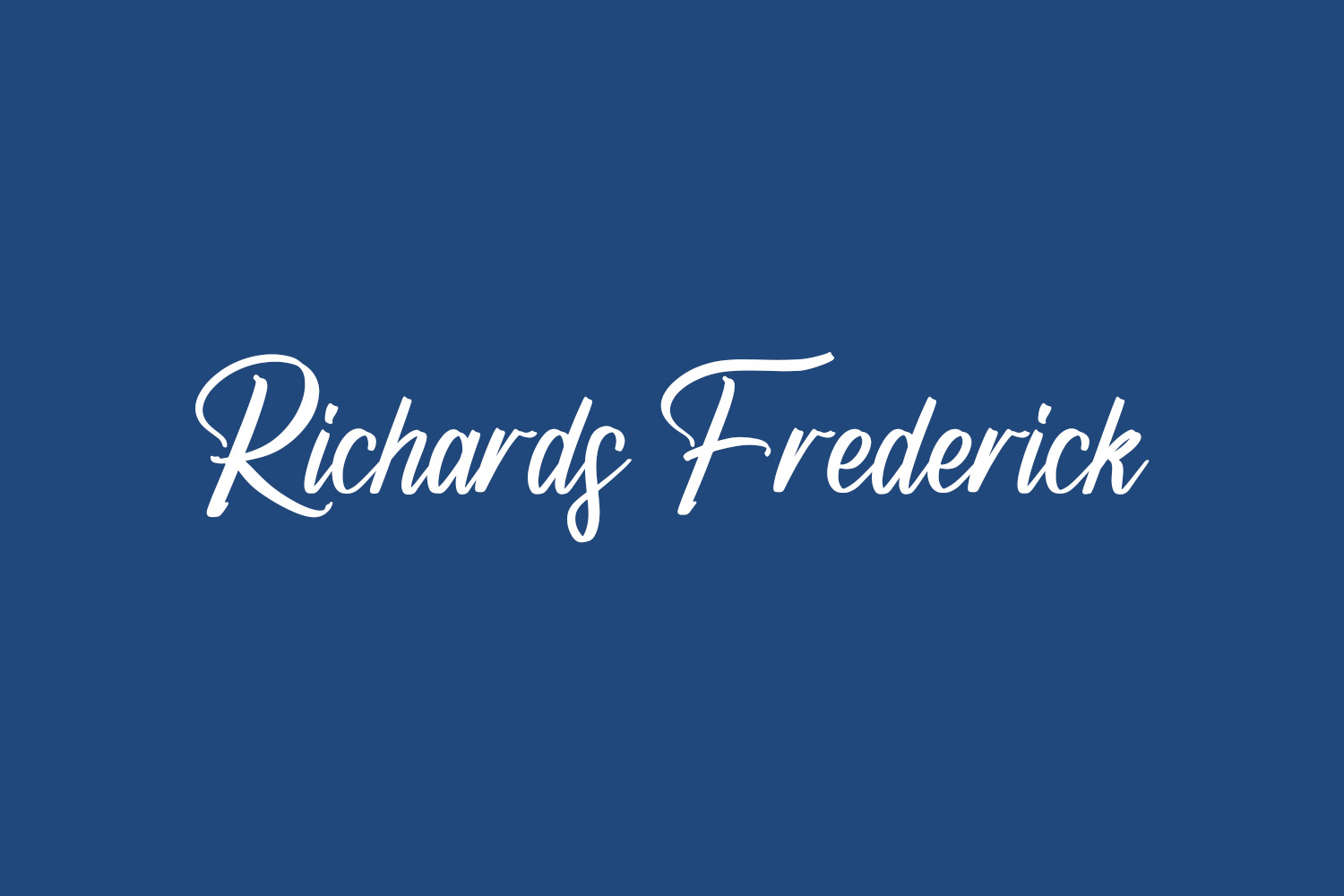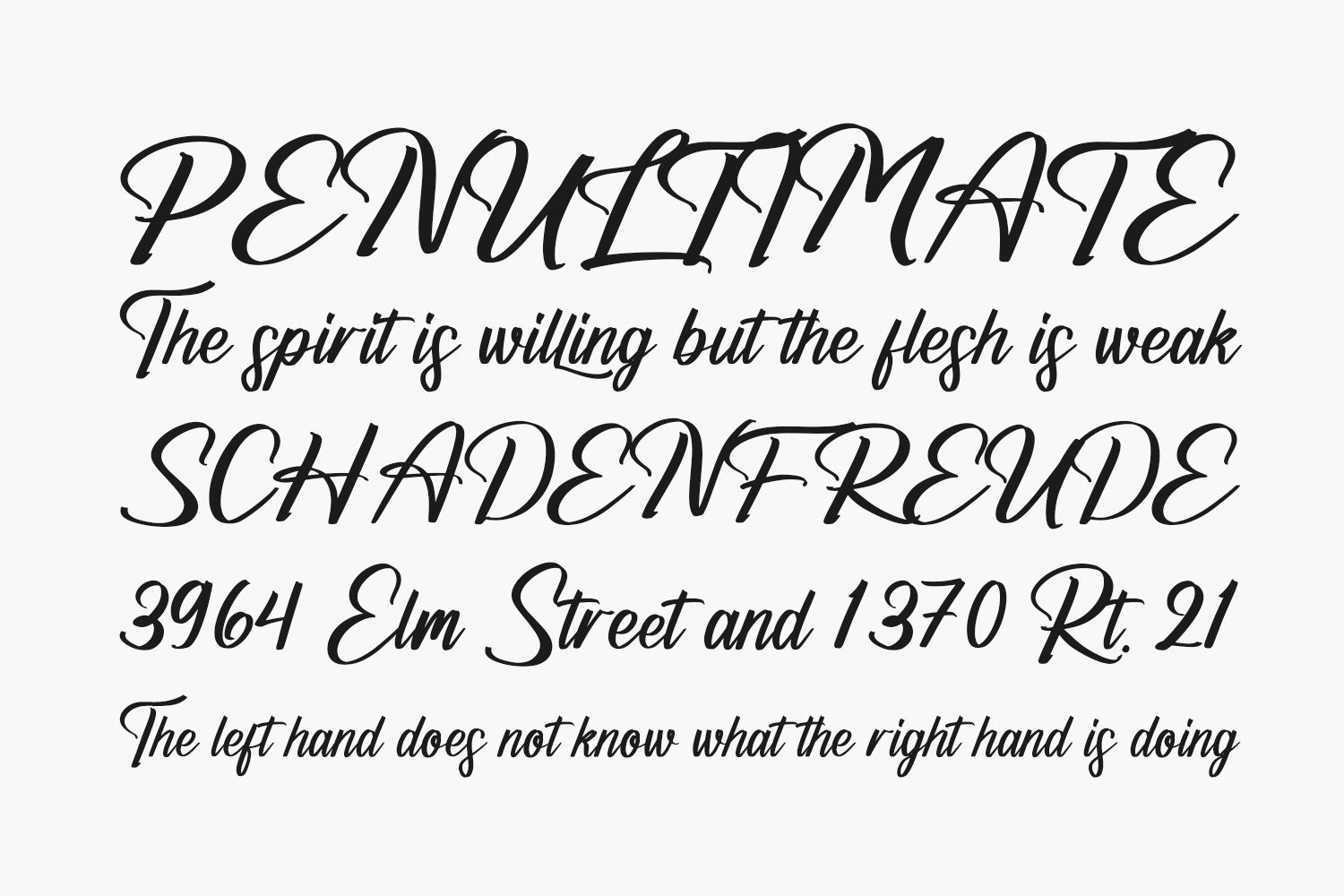
Richards Frederick Free Font Family is a lovely script font featuring charming, playful characters that seem to dance along the baseline. Richards Frederick Free Font Family was designed by Perspectype Studio and is free for personal use only. Please purchase the full version for commercial use.